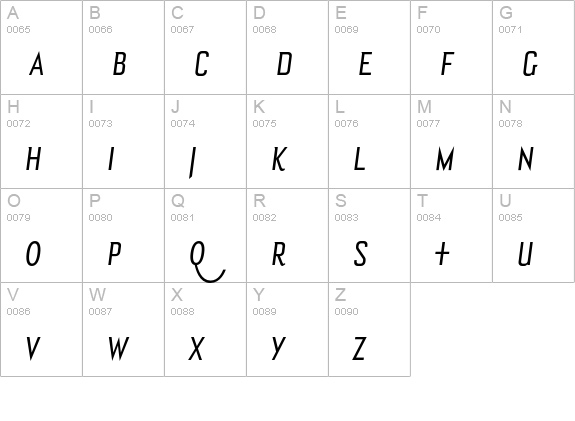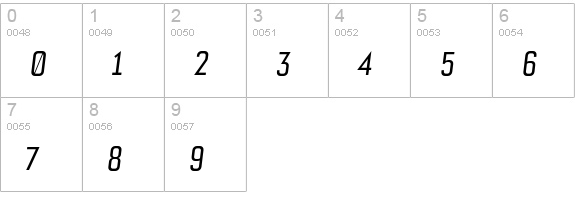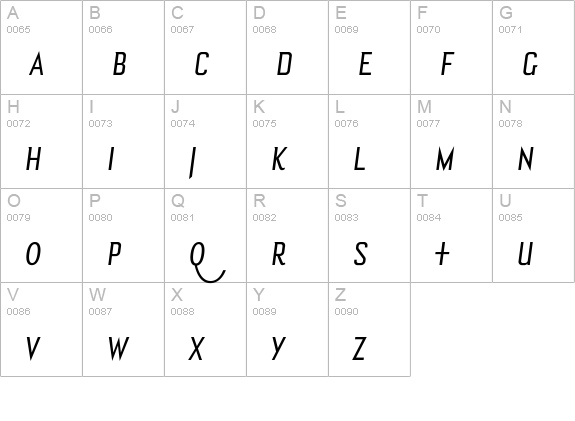
Bourgeois MedCondItalAlt Font Details
Bourgeois MedCondItalAlt is a sophisticated and elegant font that exudes a sense of class and refinement. With its medium condensed italic style, this font is perfect for adding a touch of luxury to any design project. The sleek and stylish letterforms of Bourgeois MedCondItalAlt make it ideal for creating eye-catching headlines, logos, and other design elements. What sets Bourgeois MedCondItalAlt apart is that it is available for free download at FontsMarket.com. This means that you can easily access and use this stunning font in your projects without any cost. Whether you are working on a branding project, a website design, or any other creative endeavor, Bourgeois MedCondItalAlt is sure to elevate your work with its timeless appeal. Don't miss out on the opportunity to enhance your designs with this exquisite font that is both elegant and free to use.